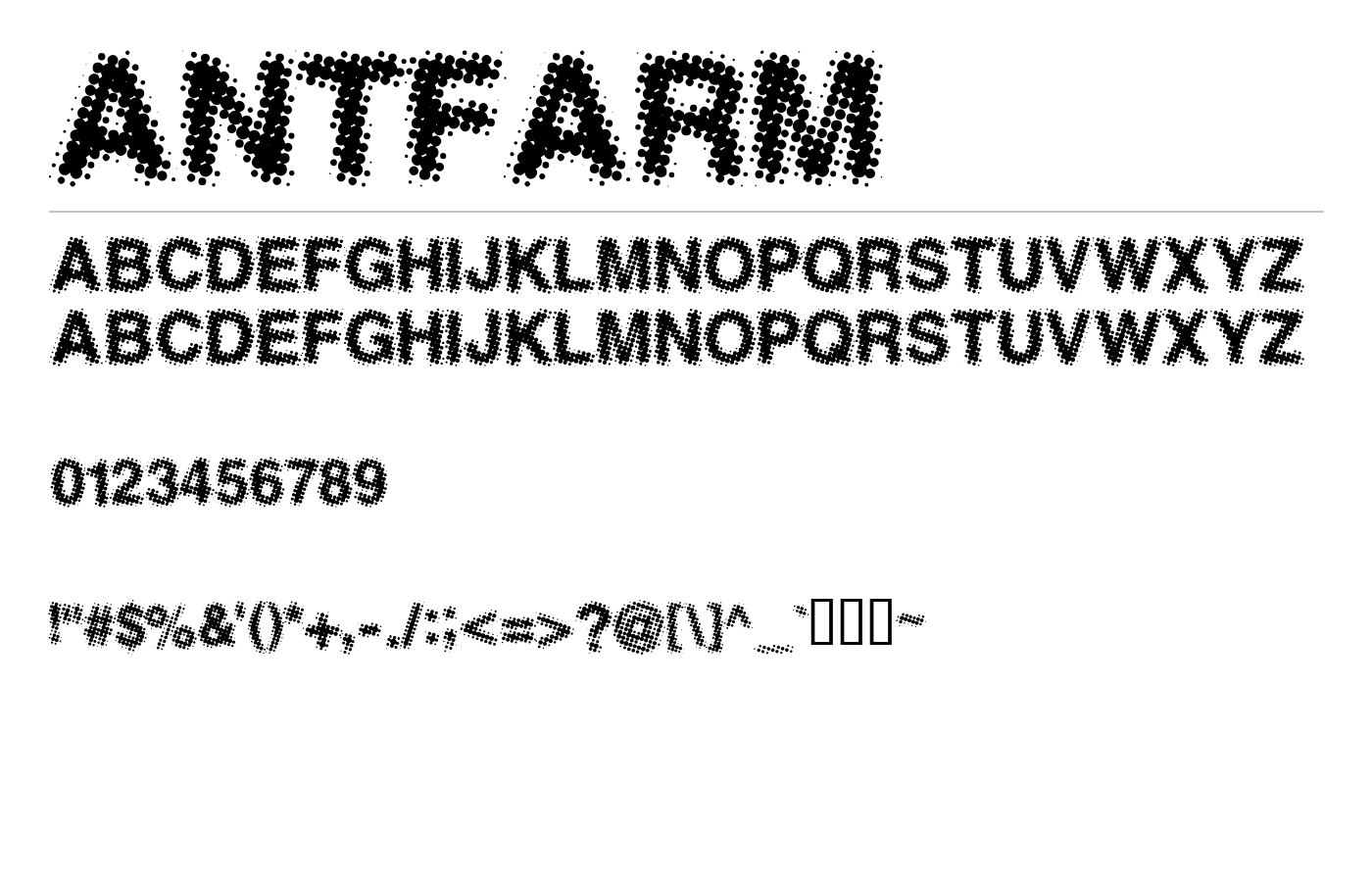
AntFarm Font is a bold, geometric sans serif typeface with a unique dotted texture that creates a playful, modern, and slightly retro vibe. Its uppercase-only style and consistent weight make it eye-catching and ideal for creative headlines, posters, or branding that aims to stand out with a lively, digital-inspired look. This font works best in display settings where its distinctive pattern and strong presence can shine without losing legibility.
AntFarm Font
About AntFarm Font
| Font family | AntFarm Font |
| Designer | Klaus Nielsen |